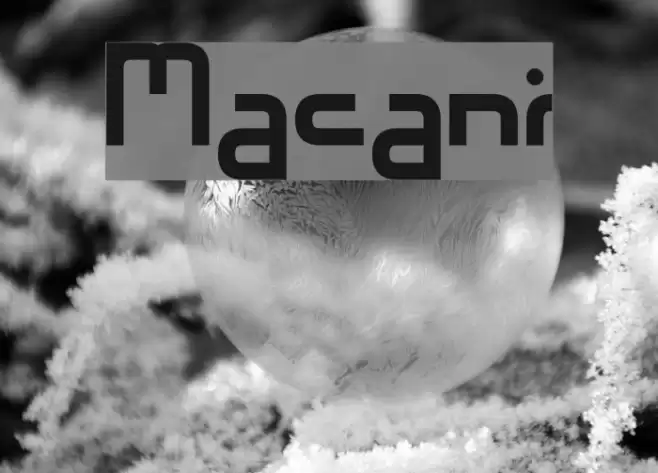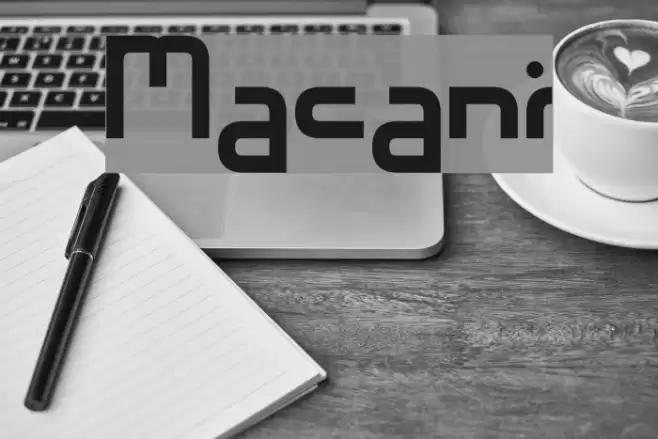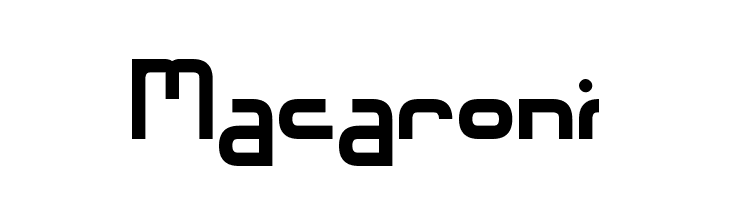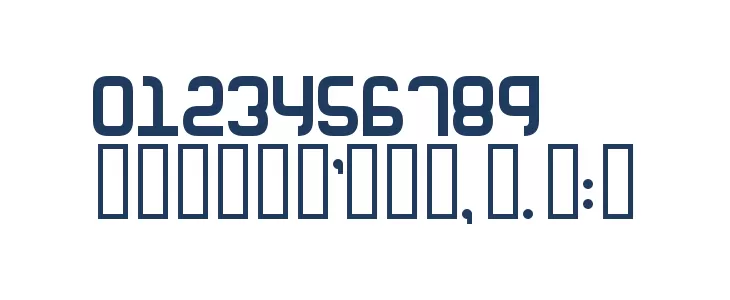
Macaroni Font
Macaroni Description
This font features a unique, modern design with a playful and geometric aesthetic. The characters are bold and rounded, with a consistent stroke width that gives them a sturdy appearance. The uppercase and lowercase letters maintain a uniform height, contributing to a cohesive look. The numerals and special characters are designed to match the overall style, ensuring a seamless integration across different text elements. The font's distinct style makes it stand out, while its readability remains intact, making it suitable for various design applications.
A modern, geometric font with bold, rounded characters from Futuristic fonts.
- Proposed Projects: Ideal for branding, packaging, posters, and digital media where a modern and playful touch is desired.